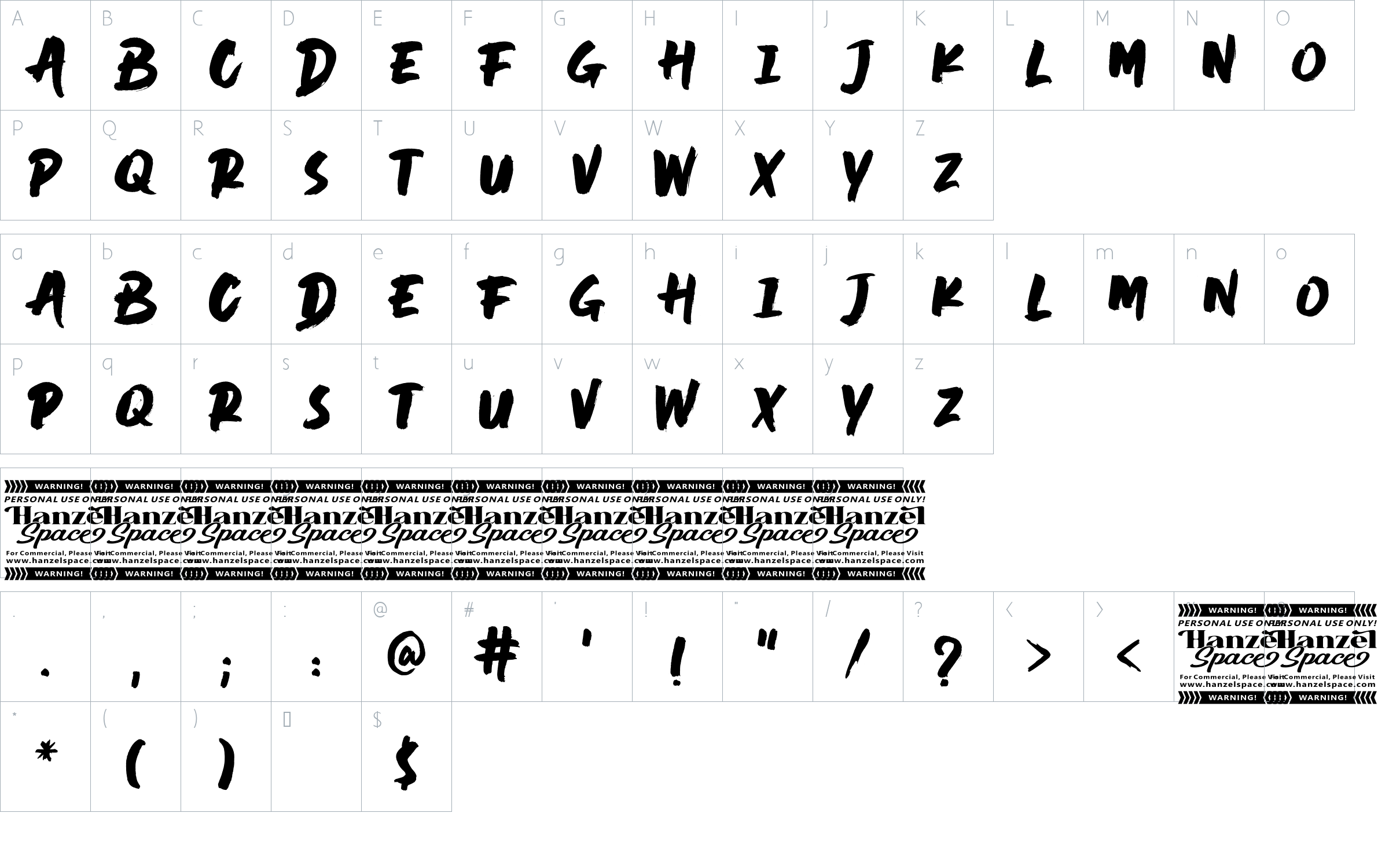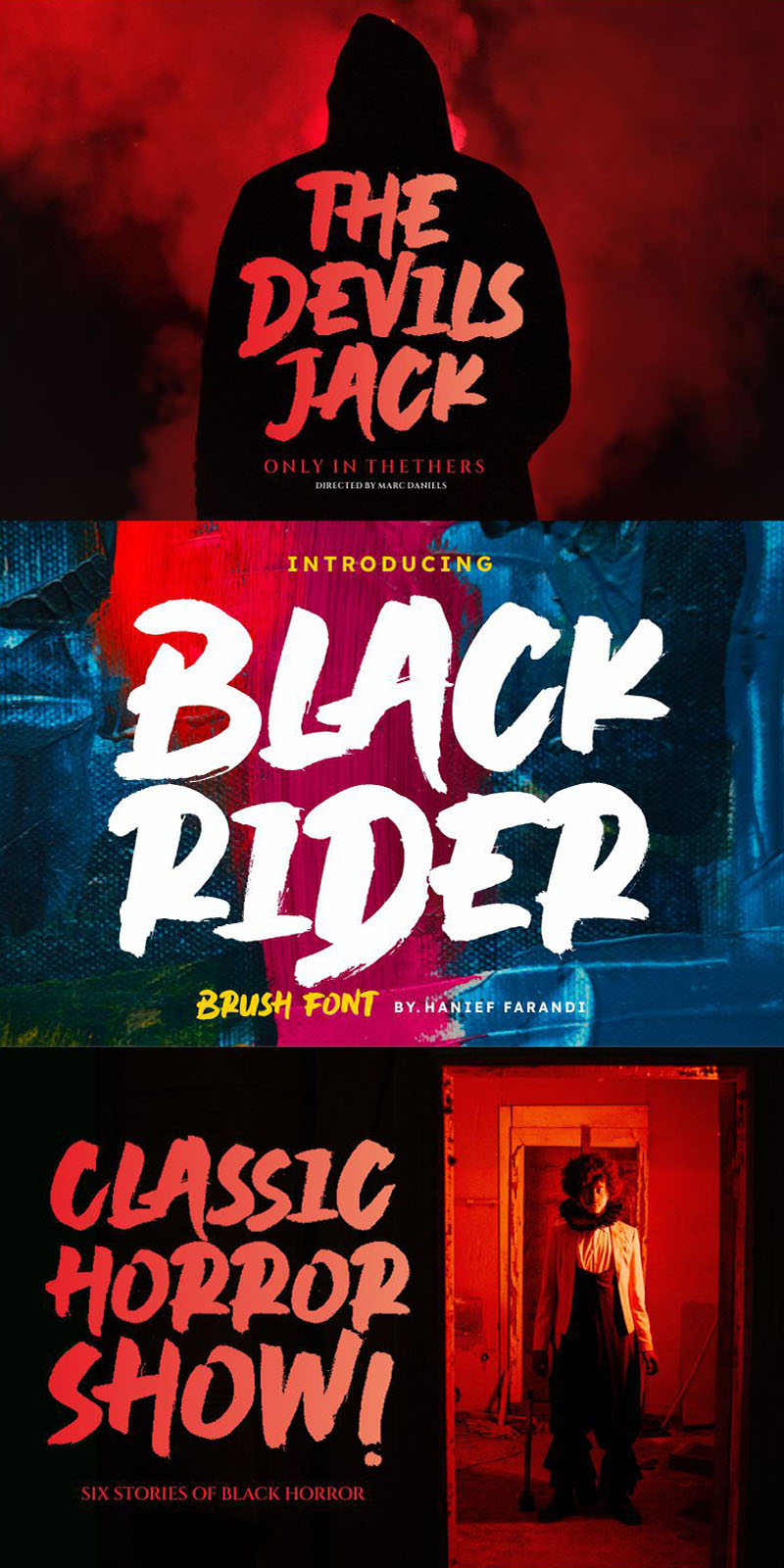
Black Rider Brush Font Font
About Black Rider Brush Font
Introducing Black Rider Brush Font
Black Rider Brush Font with contemporary, sophisticated accents. It is perfect for branding, wedding invites, tagline, cards, maybe for label and logo.
Silhouette includes full set of gorgeous uppercase and lowercase letters, numerals, a large range of punctuation and ligatures. It expresses beauty of handwriting. What you get